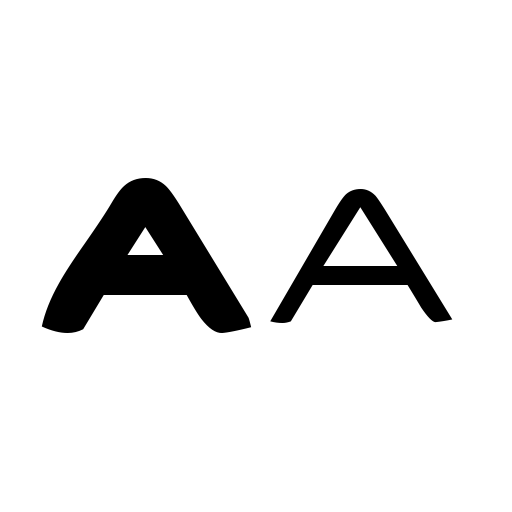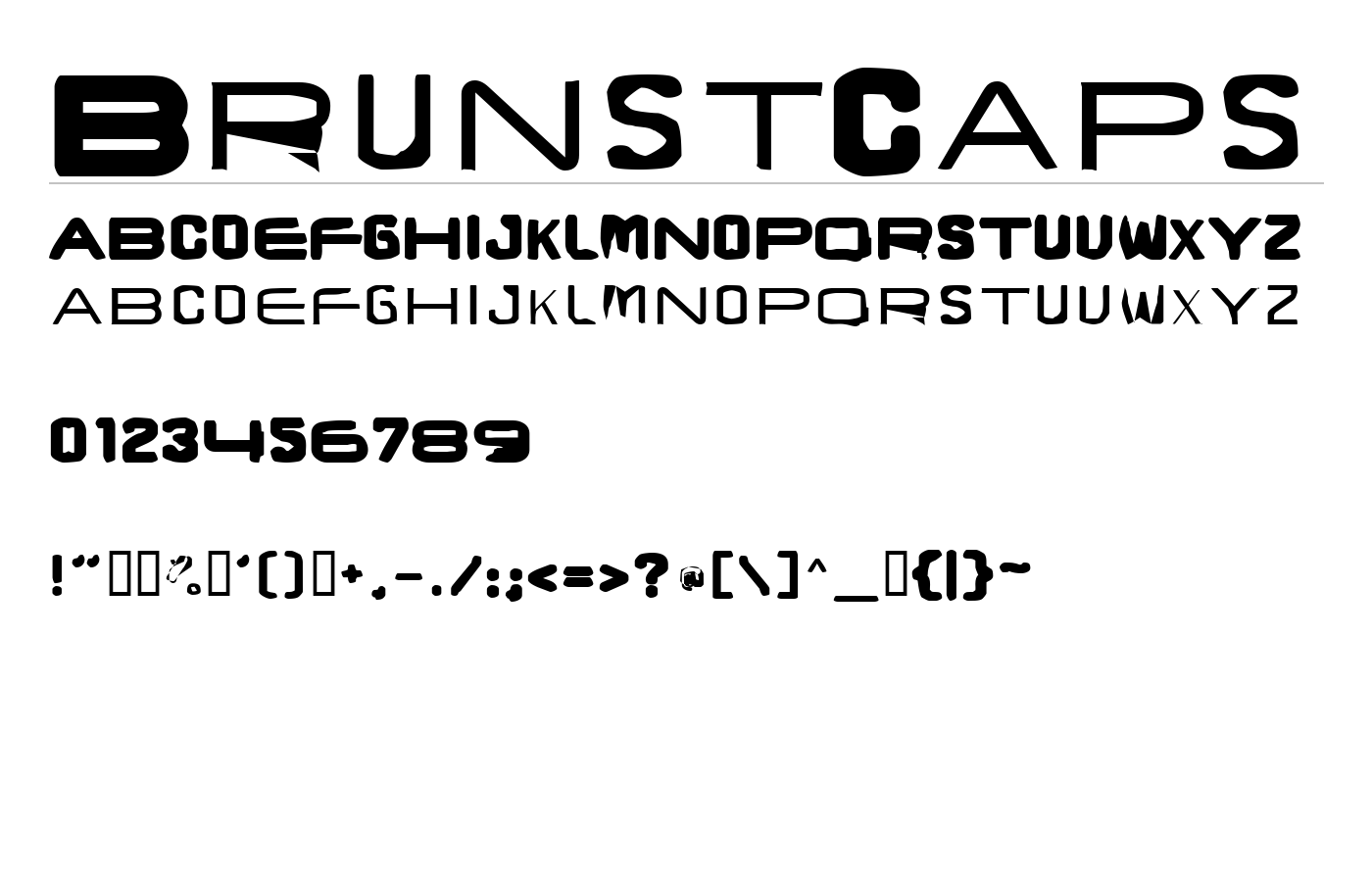
BrunstCaps is a bold, geometric sans serif font with a distinctive, slightly rugged style that combines sharp edges and irregular shapes for a modern, edgy feel. Its strong weight and unique letterforms make it ideal for eye-catching headlines, logos, and posters where a bold, contemporary look is desired. This font works well for creative branding and design projects that seek to stand out with a dynamic, unconventional personality.
BrunstCaps Font